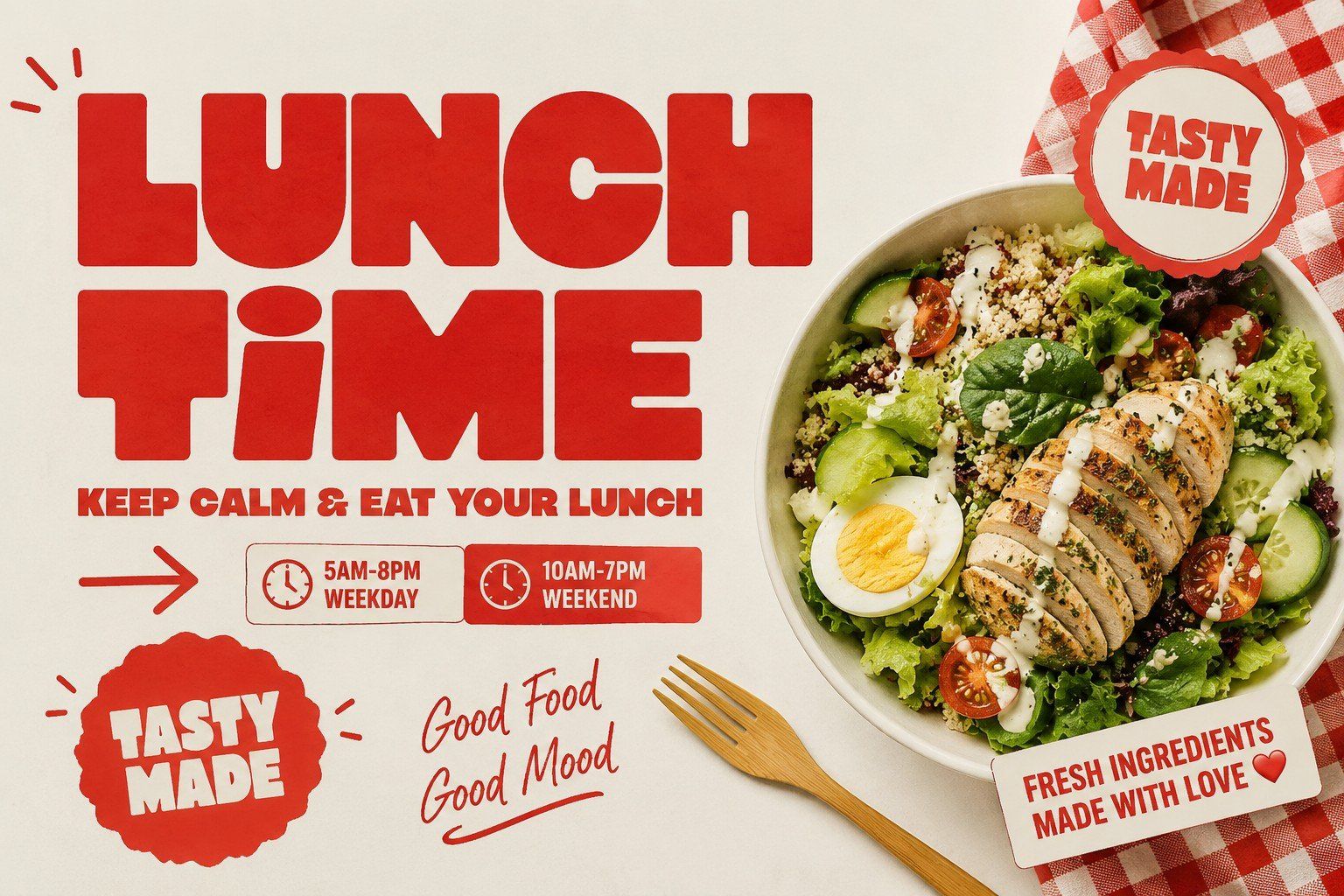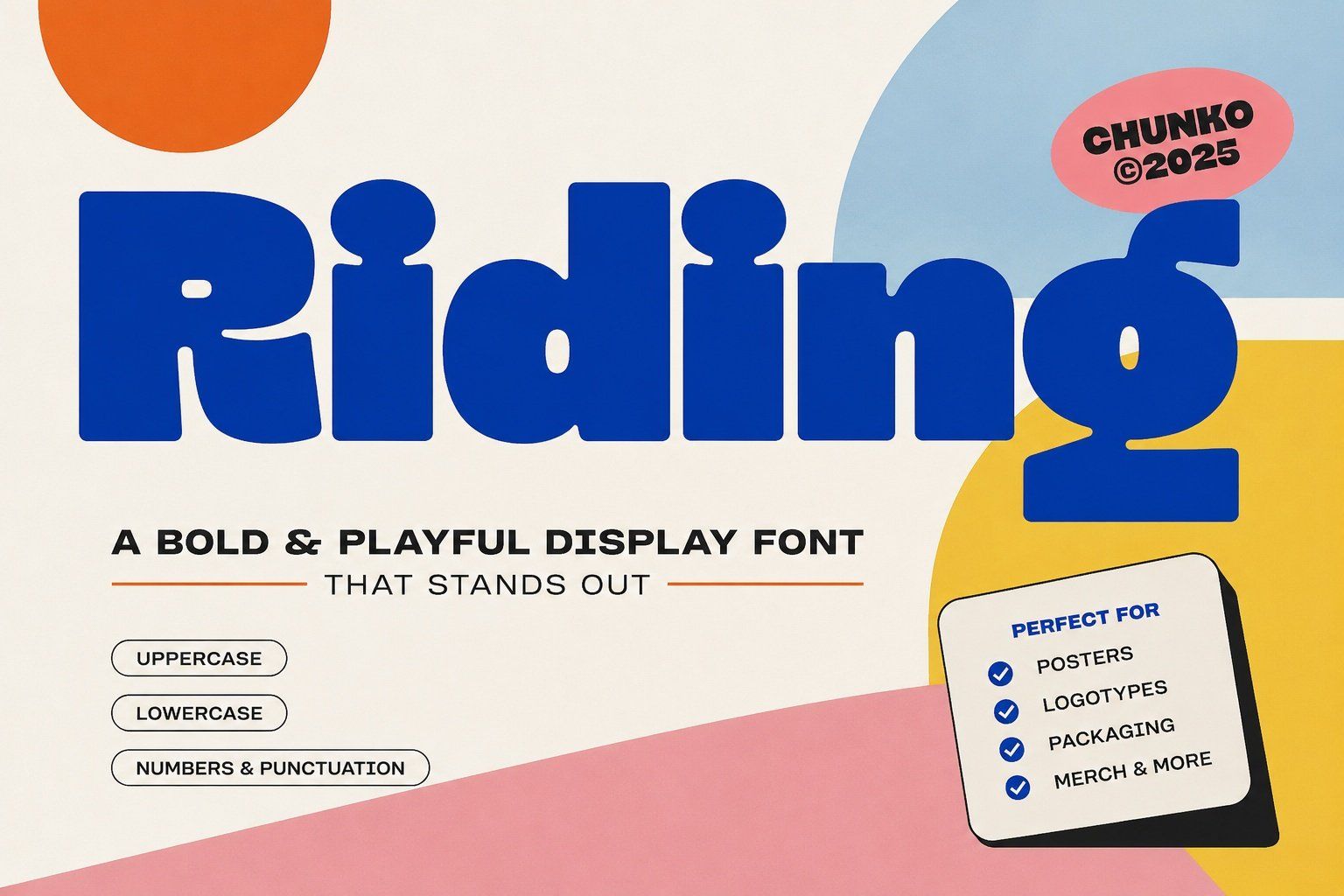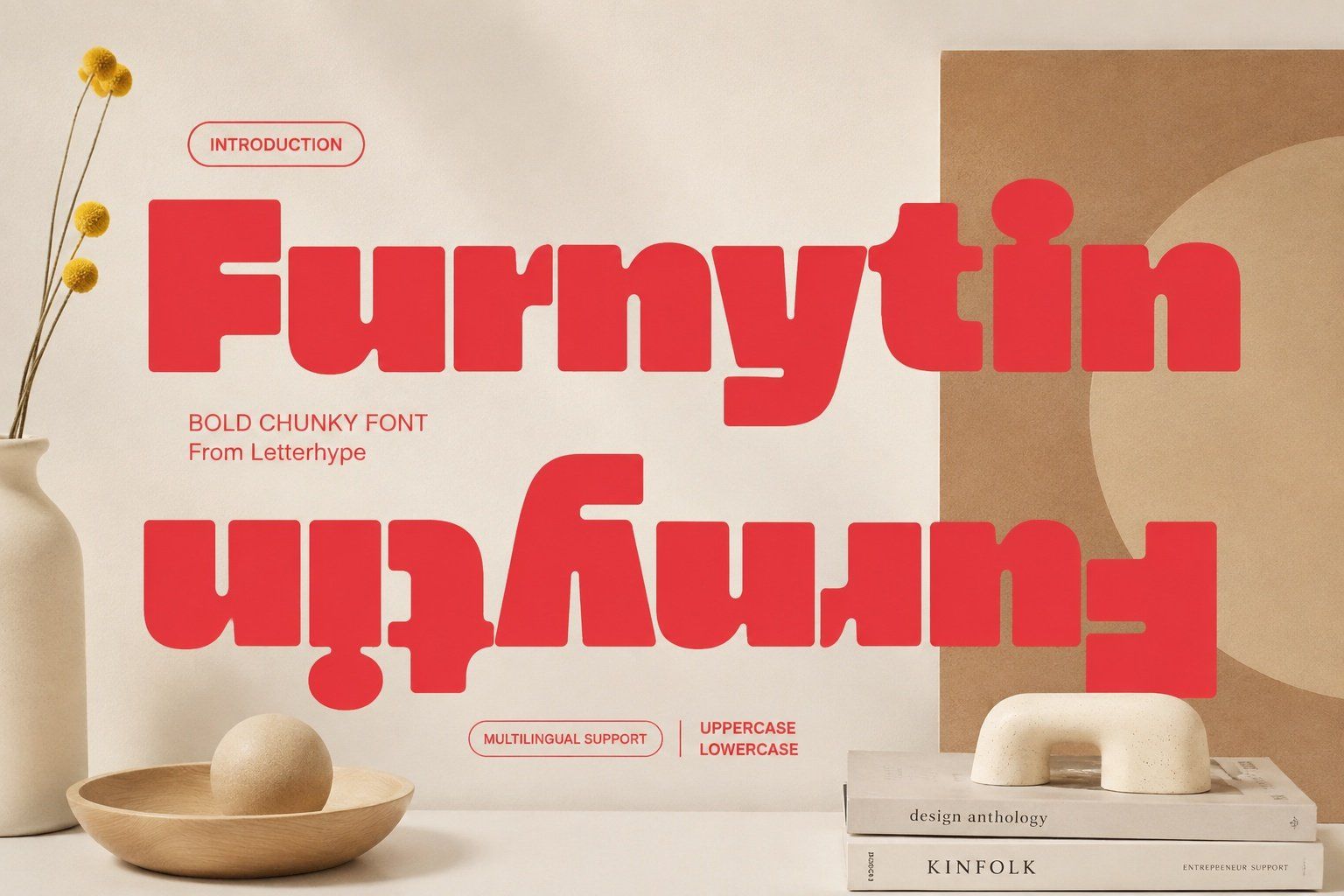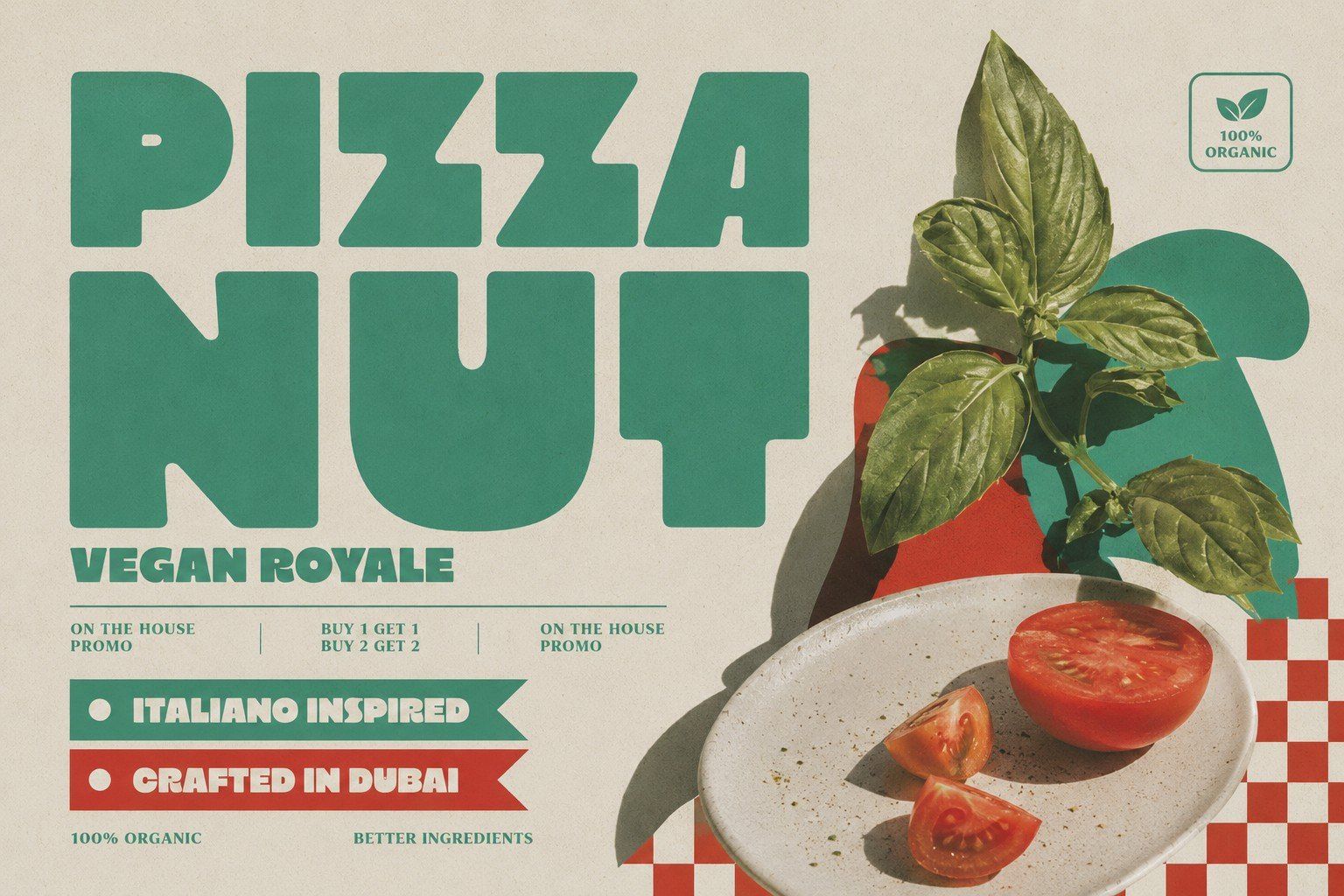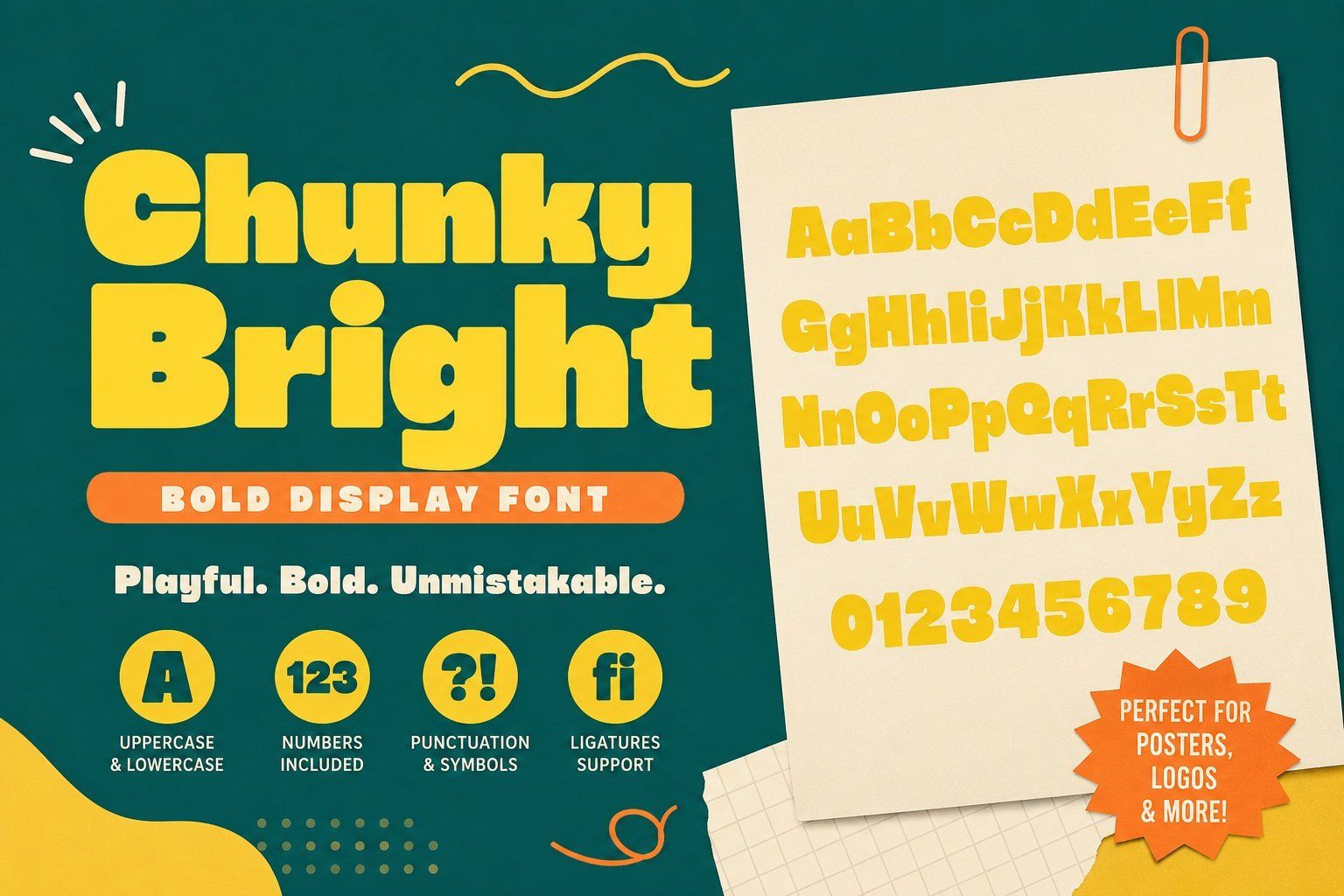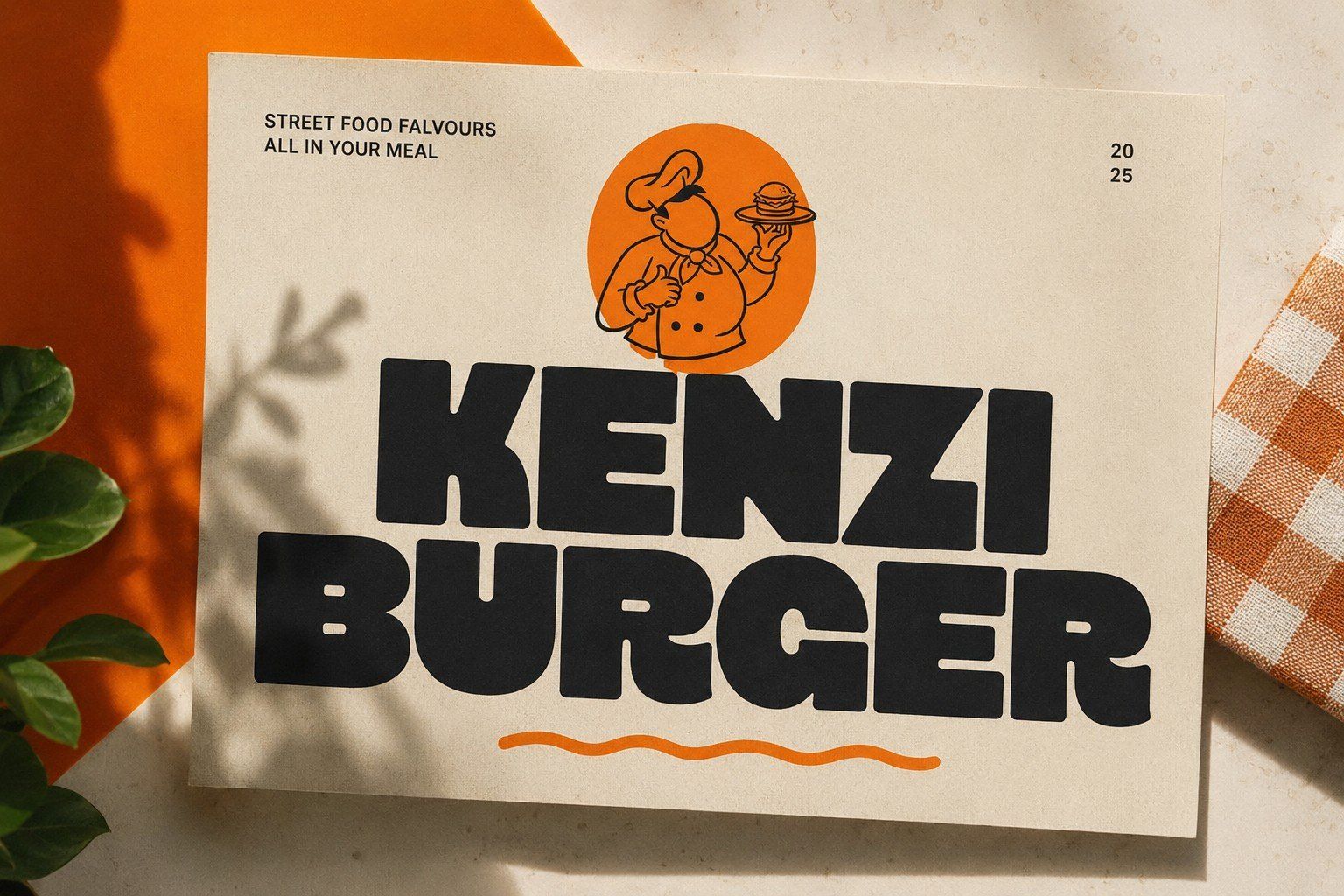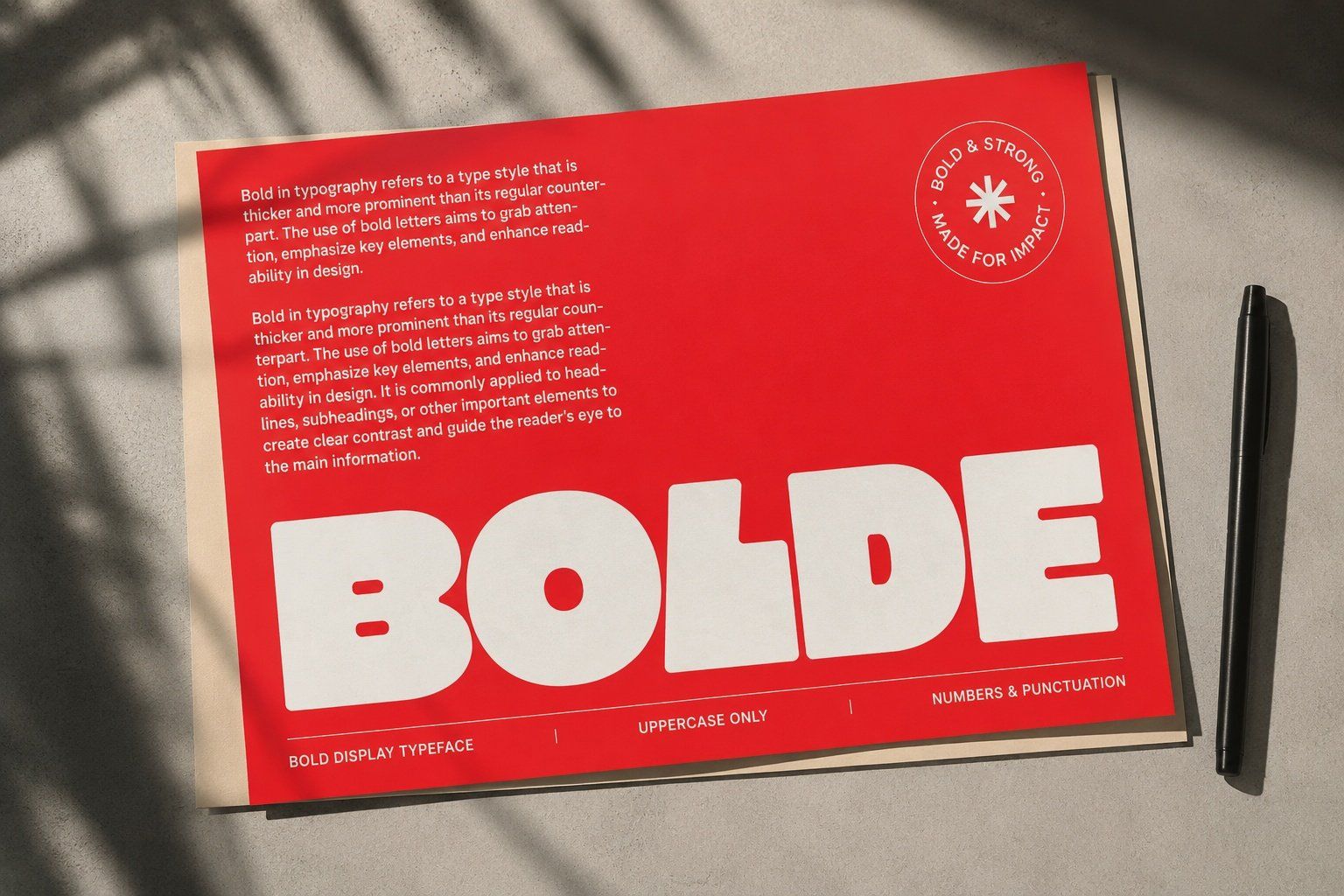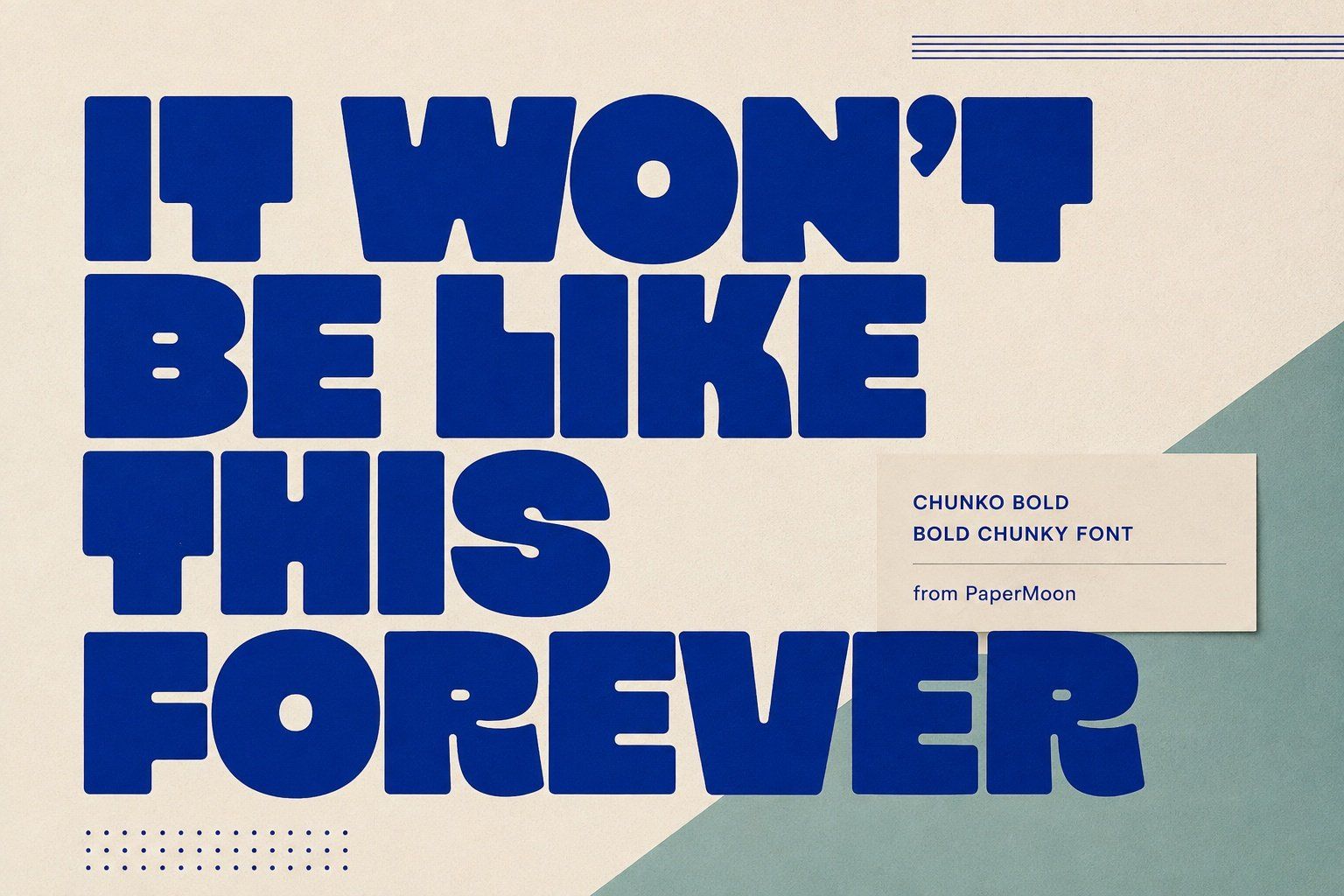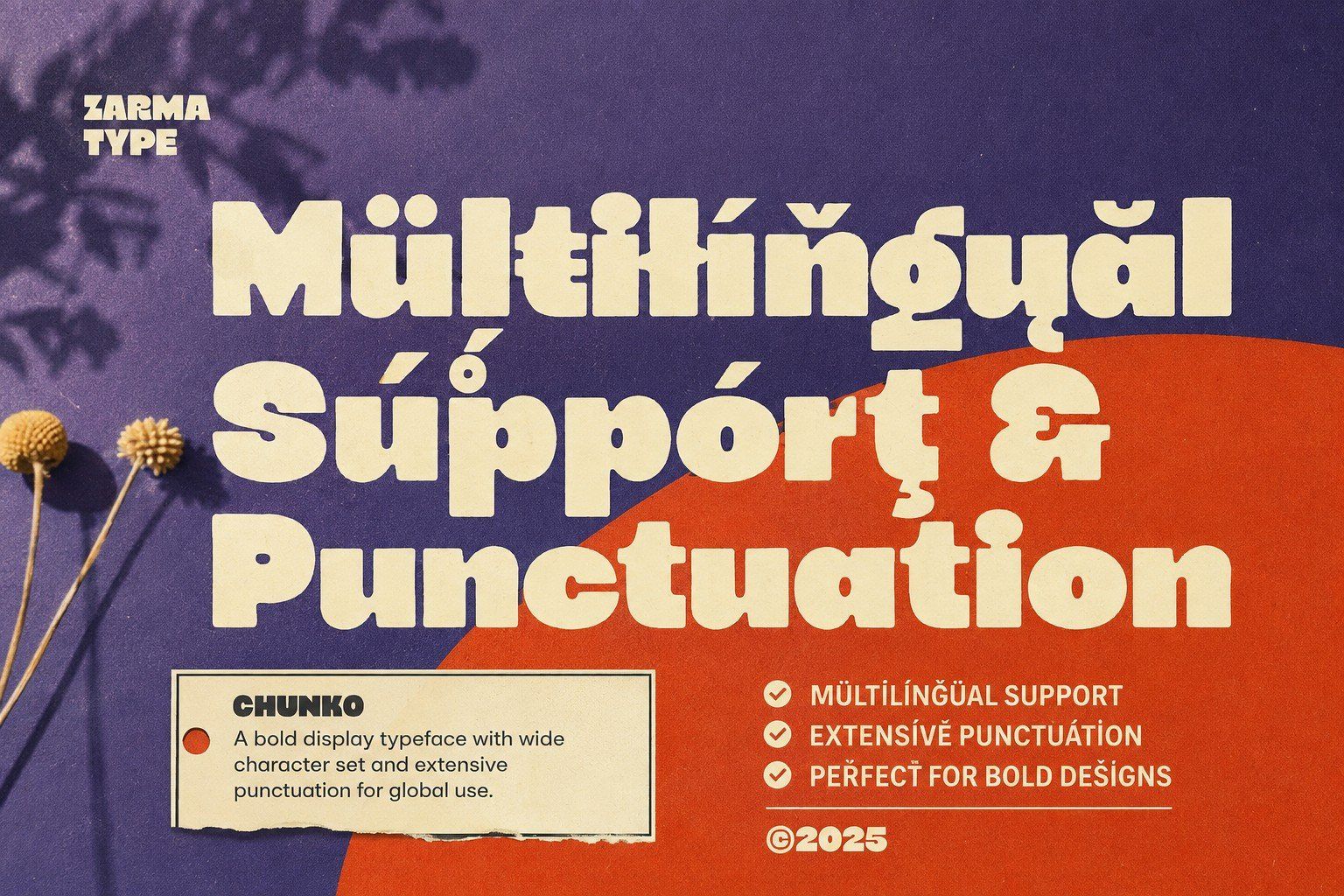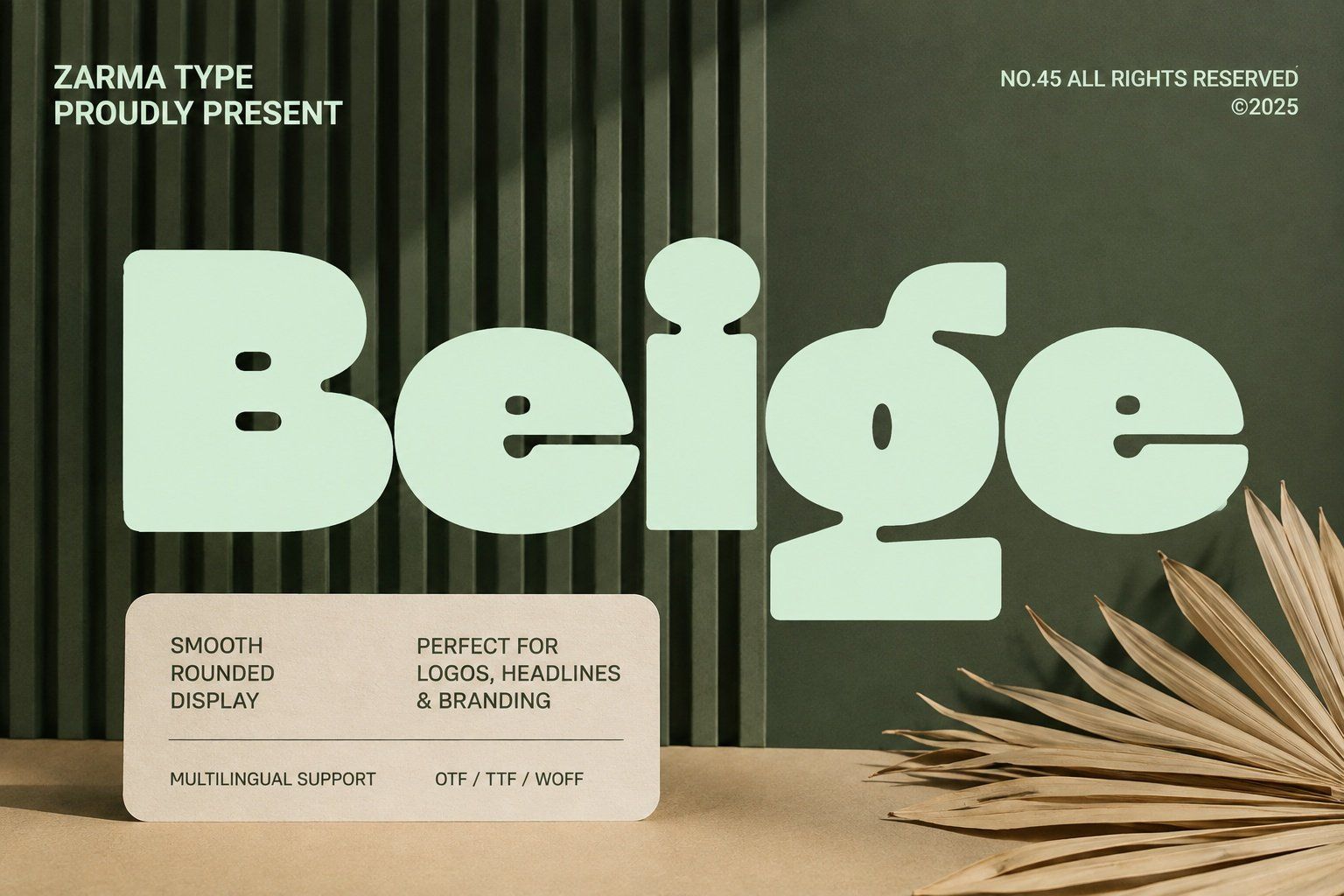
Big Riff is a bold minimalist display font with chunky geometric forms and rounded edges that deliver maximum impact in typography-driven designs.
Use Big Riff for minimalist brand identity and logo design, contemporary packaging and product labels, poster and billboard typography, food and beverage branding, editorial headlines, social media graphics, modern restaurant menus, sports and event visuals, gaming titles, apparel lettering, and clean display compositions. Its bold minimalist style works especially well for creative businesses, lifestyle brands, product launch campaigns, and any project that needs a confident, high-impact typeface with a clean foundation.
The font ships as a single Regular weight with OTF, TTF, WOFF, and WOFF2 files for full desktop and web flexibility. Big Riff includes 392 glyphs covering uppercase and lowercase letters, numerals, punctuation, and accented characters for Latin language support. OpenType stylistic alternates and standard and discretionary ligatures let you fine-tune letterforms for logo lockups, display headlines, and polished compositions.